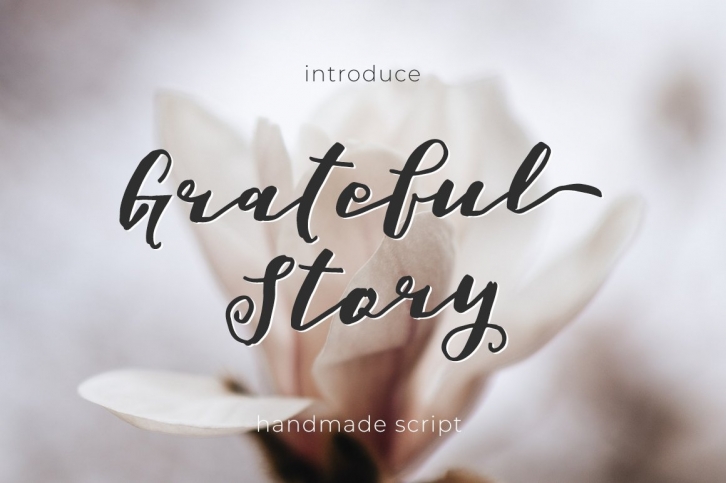
Grateful Story is a lovely script font featuring charming, playful characters that seem to dance along the baseline. This font is PUA encoded which means you can access all of the amazing glyphs and ligatures with ease!